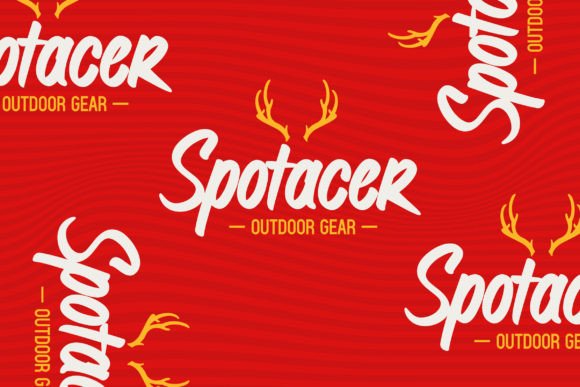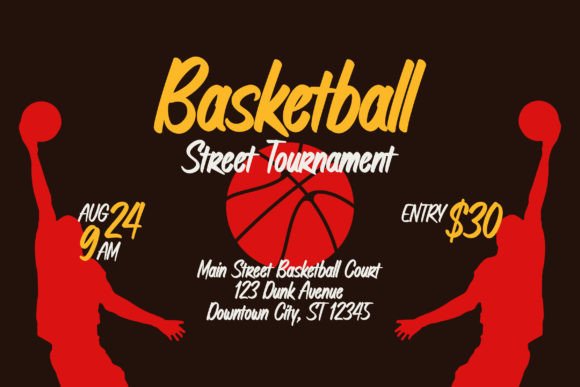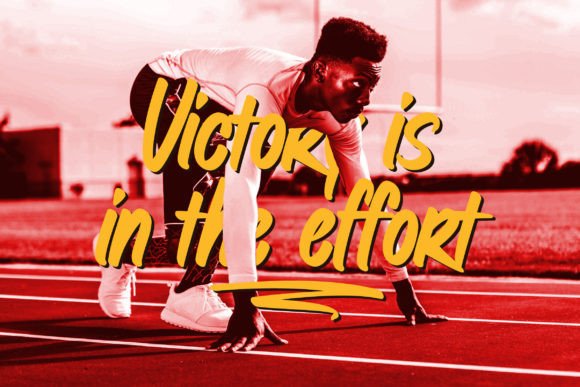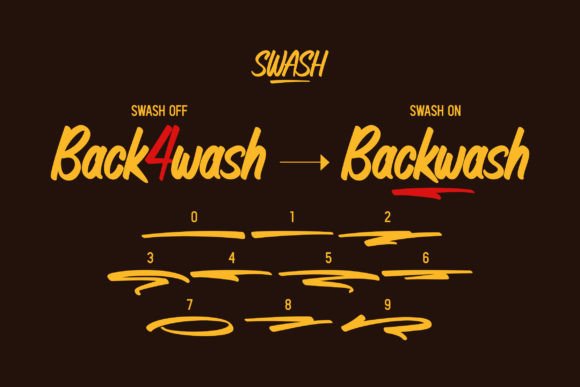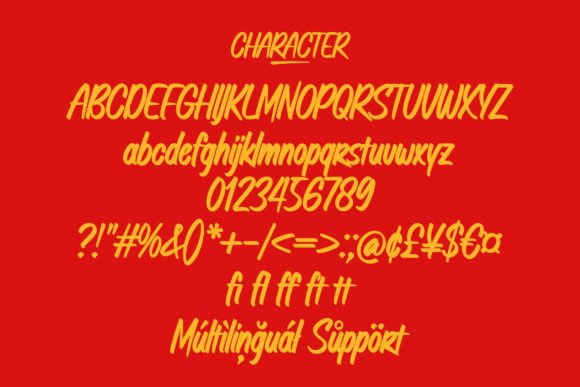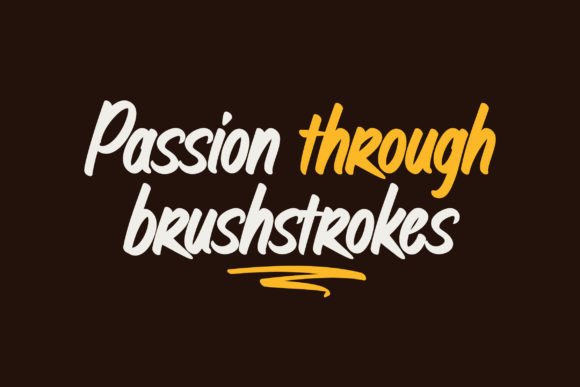
Introduction to Mooncrack Font
As a designer, have you ever found yourself staring at a blank canvas, desperate for that one font that screams ‘attention’? You know, that font that makes your design project stand out from the crowd and grabs the viewer’s attention in an instant? For many designers, that elusive font is none other than the Mooncrack Font – a high-quality, bold brush-style font that’s perfect for making a statement.
Whether you’re working on a logo, branding, poster, or quote, the Mooncrack Font is an invaluable design resource that’s sure to elevate your creative project to new heights. Its bold, masculine strokes are impossible to ignore, and its transparent background makes it easy to layer and combine with other design elements. And the best part? It’s available for a free download, making it a must-have in every designer’s toolkit.
Key Features of Mooncrack Font
- High-quality design: Mooncrack Font is a unique and stylish font perfect for creative projects.
- Transparent background: This font features a transparent background, allowing for seamless integration into various design elements.
- High-resolution design: The font is designed at 300 DPI, ensuring crisp and clear display on high-resolution screens.
- Unique characteristics: Mooncrack Font features a distinctive, hand-drawn style with intricate details, making it perfect for adding a touch of personality to creative projects.
- Size: The font comes in a range of sizes, from 8 to 128 points, allowing for flexibility in design applications.
Honest Review: Mooncrack Font
As a designer, I’m always on the lookout for high-quality fonts to enhance my creative projects. I recently stumbled upon the Mooncrack Font, which offers a unique and stylish design.
- ✨ High-quality design with a transparent background, making it perfect for overlaying on images or using as a standalone element.
- ✨ The font’s unique design makes it perfect for creative projects, such as branding, advertising, or editorial content.
- ⚠️ The font’s style may not be suitable for all types of projects, particularly those that require a more conservative or traditional approach.
Overall, I’m impressed with the Mooncrack Font’s design and versatility. While it may not be perfect for every project, it’s definitely a valuable addition to any designer’s toolkit. With its high-quality design and transparent background, it’s a great resource for designers looking to add some creativity to their work.
Mooncrack Font
Tips for Getting the Most Out of Mooncrack Font
For optimal results, use Mooncrack Font in conjunction with other design elements that complement its unique style. Experiment with different font sizes, colors, and arrangements to create a visually appealing design. Additionally, consider pairing Mooncrack Font with other creative resources, such as graphics and textures, to enhance your project’s overall impact.
Common Use Cases for Mooncrack Font
Mooncrack Font is ideal for a variety of creative projects, including digital art, graphic design, and even web design. Its unique aesthetic makes it perfect for creating eye-catching headings, titles, and other design elements that require a touch of creativity and personality.